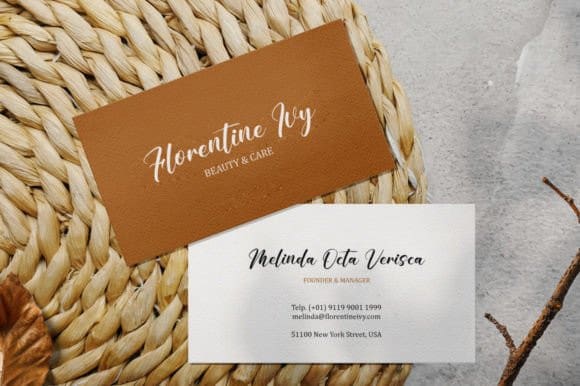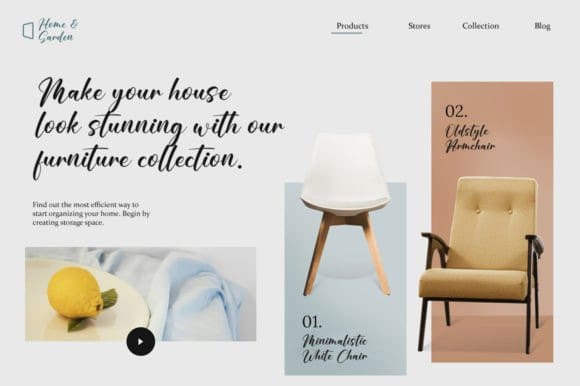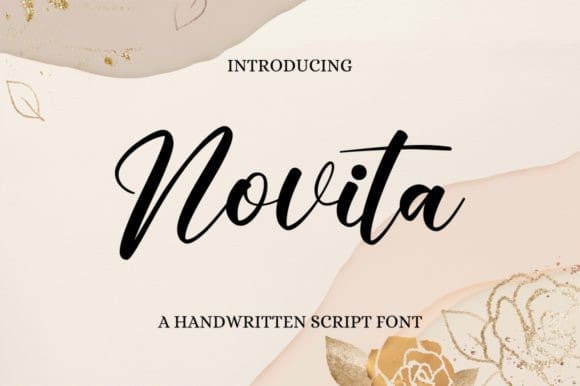
Novita Script Font
Novita Script Font, is a lovely and timeless handwritten font. It is the best choice for creating eye-catching logos, branding, and quotes.